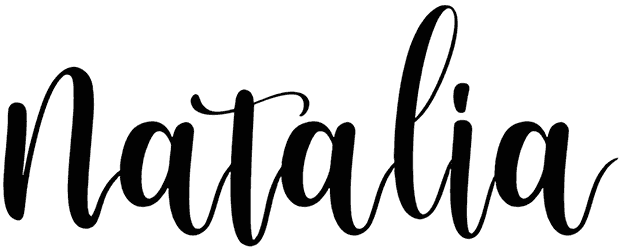
Natalia Font
Natalia is a handwritten font with a personal charm that will keep any professional designer busy for a few minutes. This holiday font is a unique typography talent that guarantees your progress and success at work. Alth…
Natalia is a handwritten font with a personal charm that will keep any professional designer busy for a few minutes. This holiday font is a unique typography talent that guarantees your progress and success at work. Although the design of wedding invitations and birthday greetings is the strength of this font, most designers use it for other design purposes, such as logos or branding.